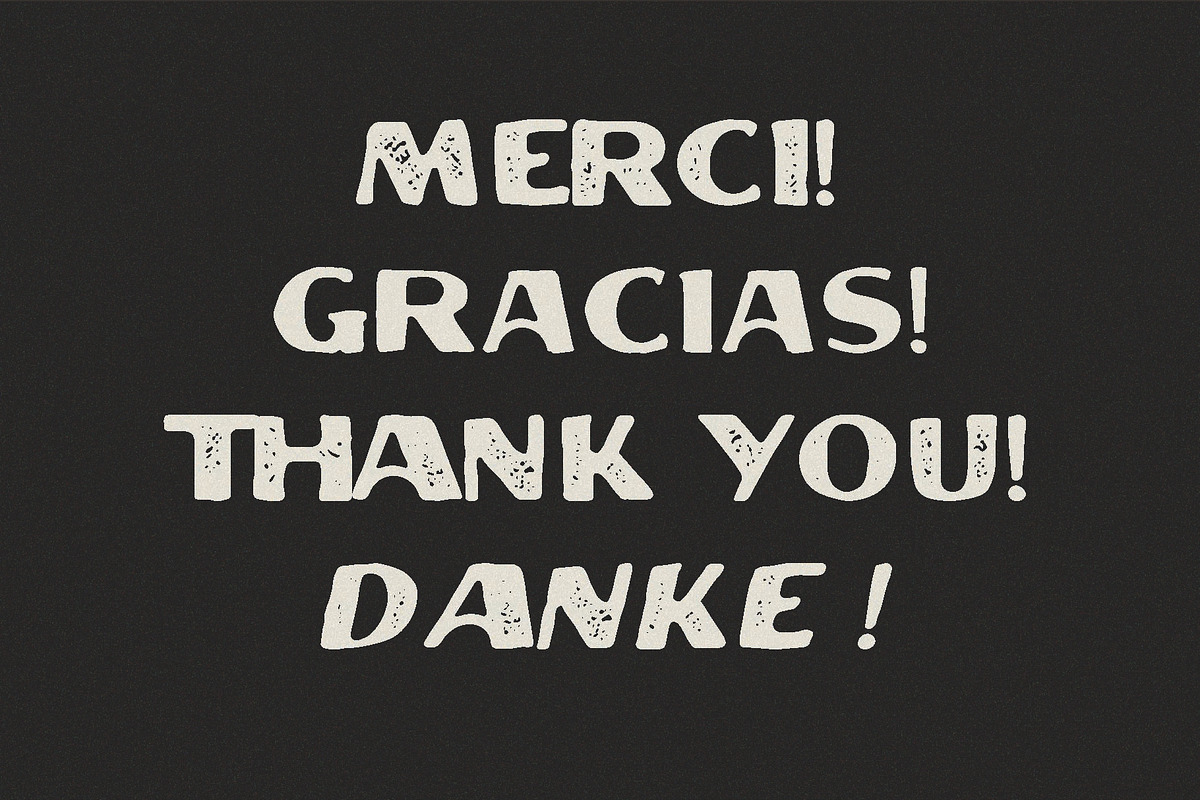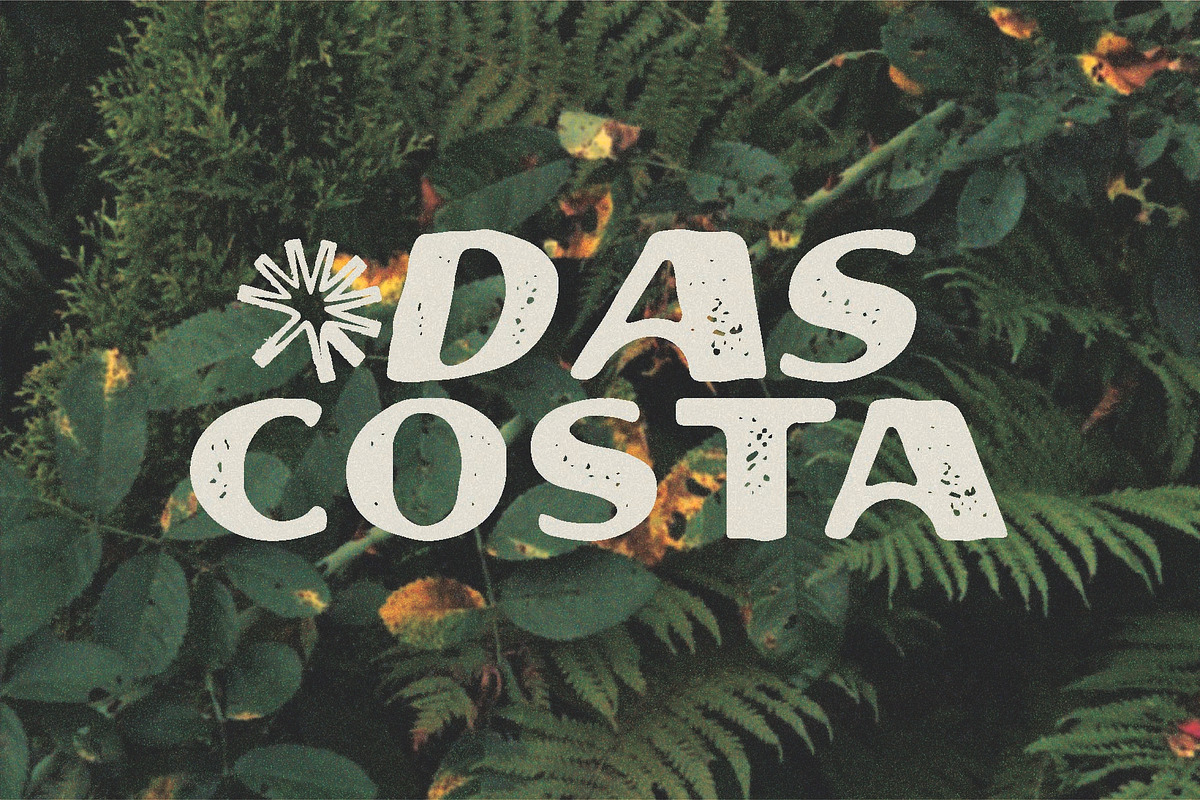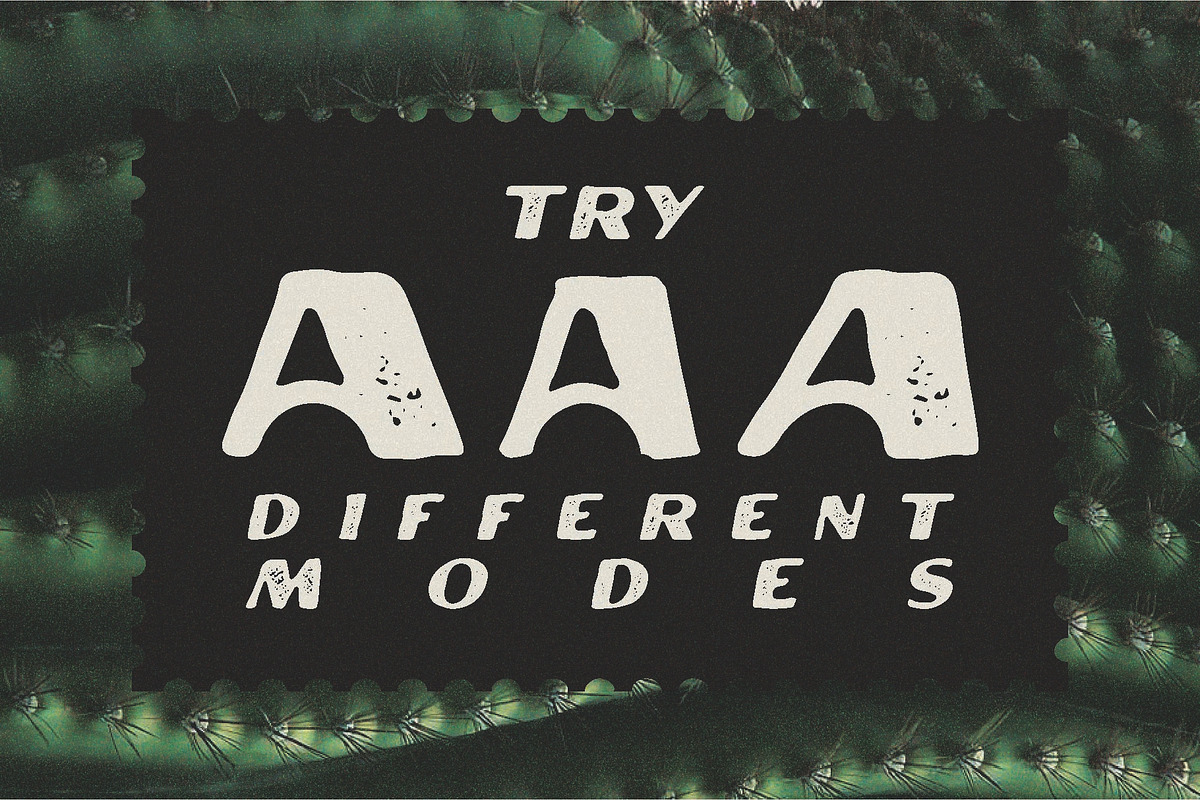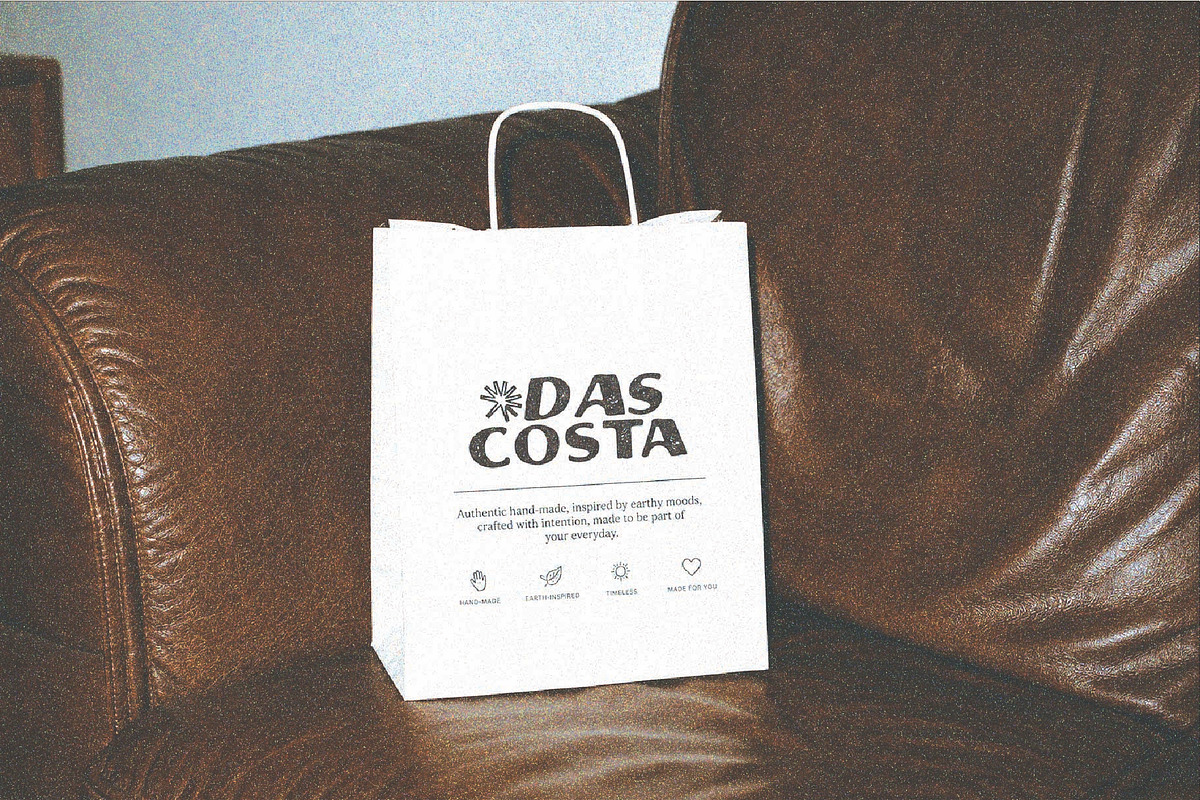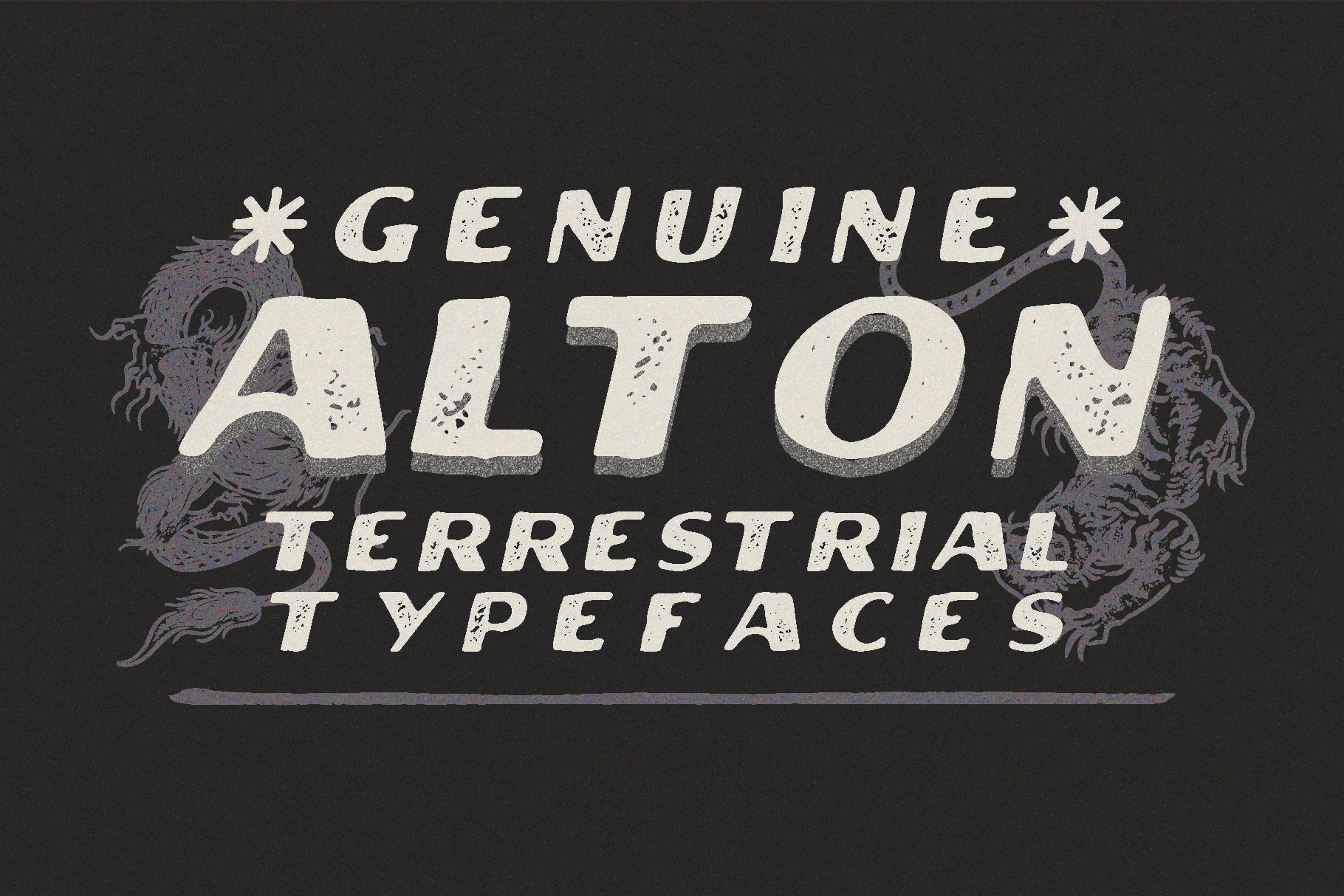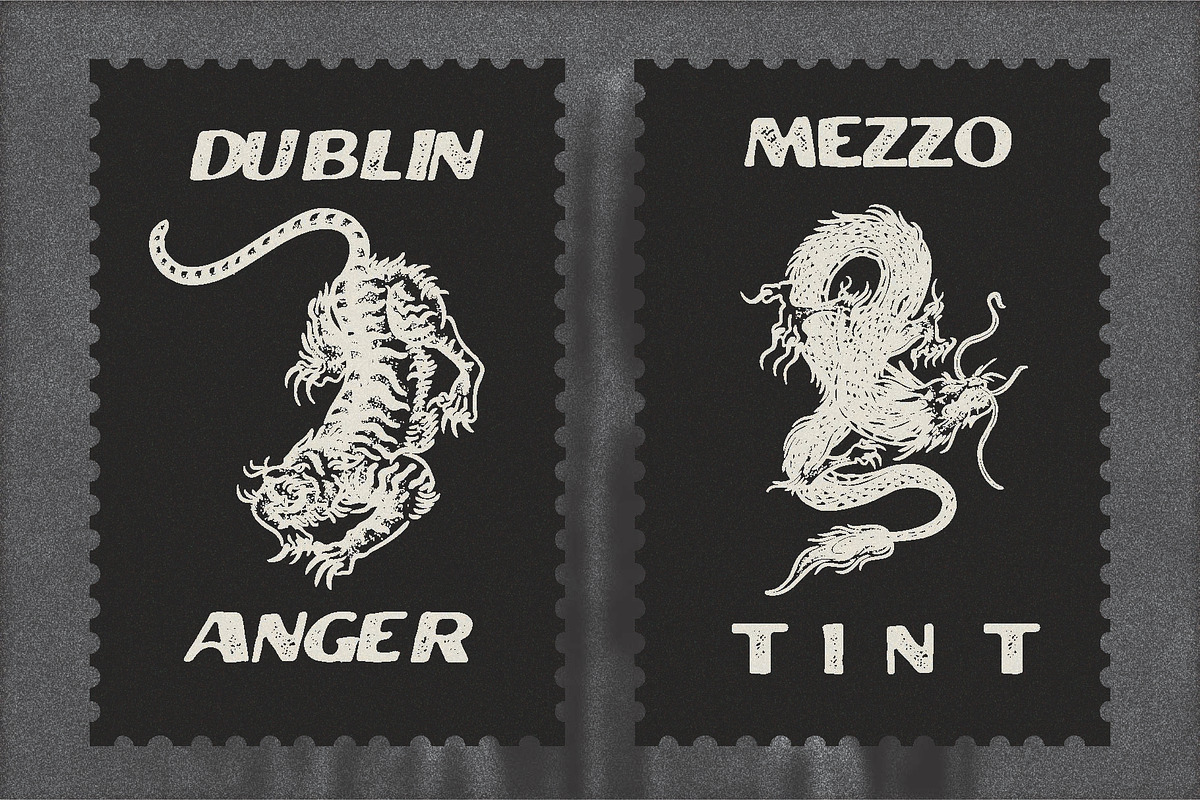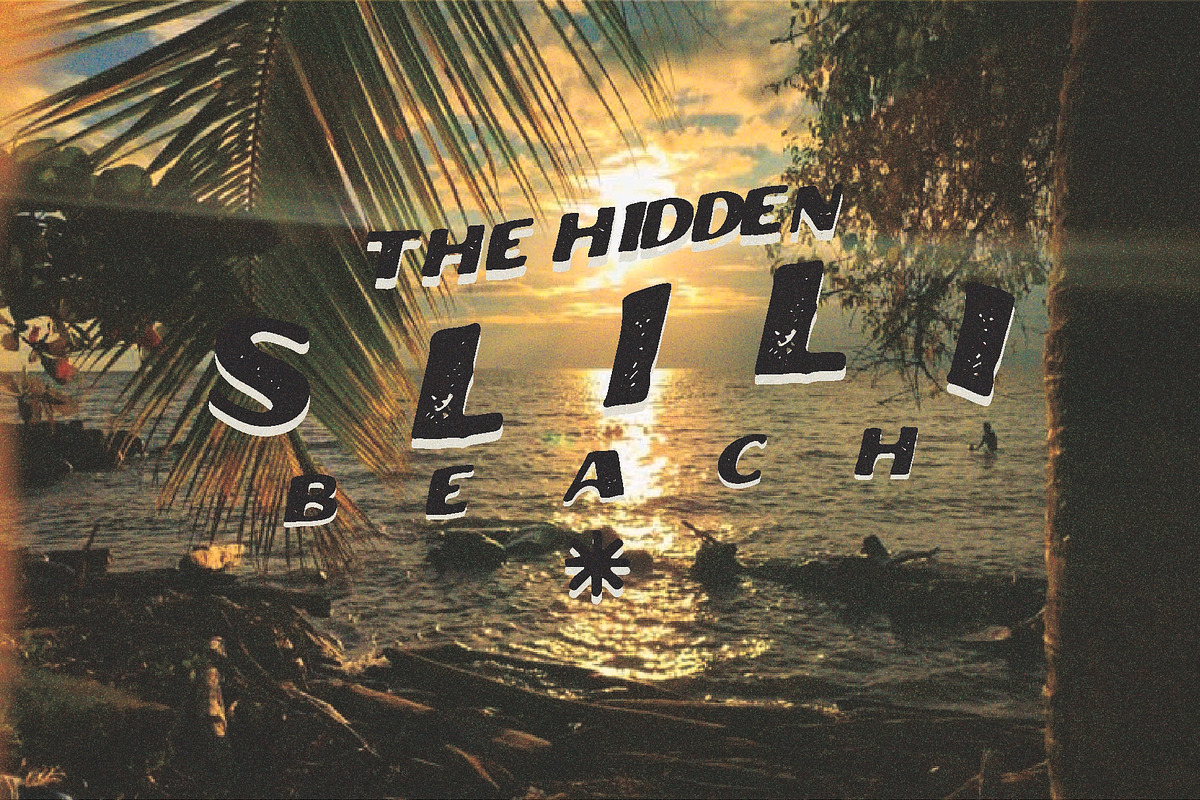
Alton - Terrestrial Typefaces
Genuine Alton Terrestrial Typefaces - Handcrafted font truly crafted to stand out your design
is a bold, playful hand-drawn display typeface inspired by golden 80's era, distressed rusty travel posters, and carefree summer vibes. With its organic strokes and expressive shapes, Alton brings a warm, energetic personality to stand out your designs.